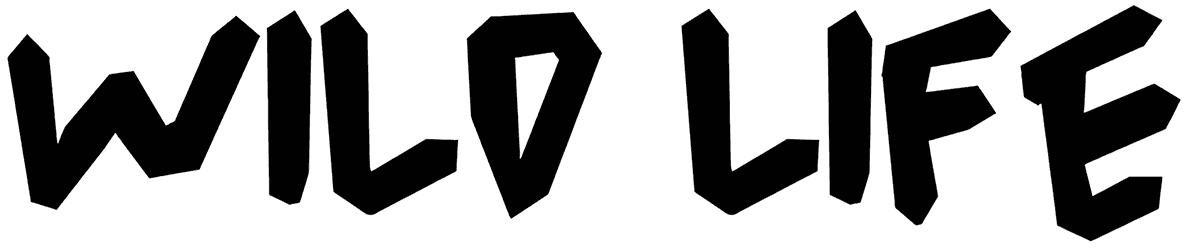
Wild Life Font
Wild Life is the element that is enough to take your writings to the Paleolithic era and can create a sense of the reports on the cave walls.
This adventure font has a unique and angular design that can make your new movie poster more attractive or add children’s books to the bestseller list. Ignore the lack of lowercase letters and numbers in this fancy font for higher levels of creativity, and keep it in your collection.